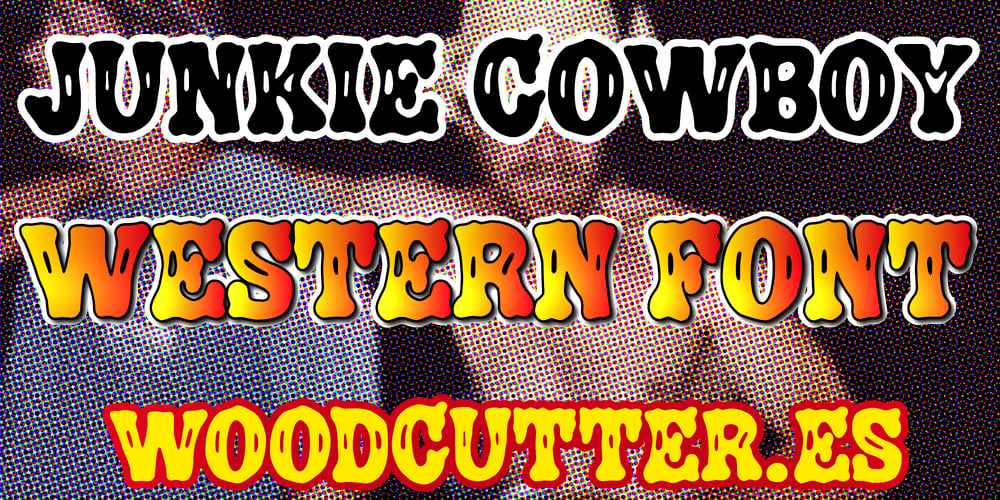
Junkie Cowboy
Junkie Cowboy font
Junkie Cowboy Font Family was designed by Jordi Manero and published by Woodcutter. Junkie Cowboy contains 1 styles and family package options. “Junkie Cowboy” is an informal font with a western aesthetic featuring decorated uppercase letters. This typeface captures the rebellious and free spirit of the old west, adding a rustic and authentic touch to any design. Ideal for posters, advertisements, and projects seeking to evoke the cowboy style, “Junkie Cowboy” combines the traditional with a casual flair. Its decorated and distinctive letters bring personality and character, making this font a perfect choice to highlight titles and messages with a wild west touch.–Uppercase